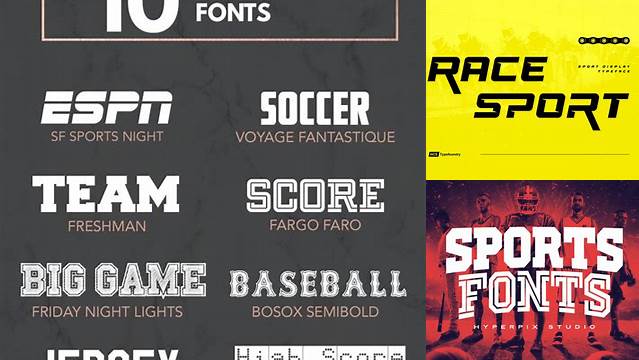
Sport Font: Free Downloads & Tips For Dynamic Designs
Are you looking to inject some dynamic energy into your designs? Look no further! Sport fonts are the perfect way to capture the spirit of competition, athleticism, and high-octane action in your projects. Whether you're designing a sports team logo, creating eye-catching posters for a fitness event, or developing a video game with a competitive edge, the right font can make all the difference. In this article, we'll dive into the world of sport fonts, exploring what makes them so effective, where to find them for free, and how to use them to achieve the maximum impact in your designs. So, buckle up and get ready to explore the exciting possibilities of sport fonts!
What Makes a Font a "Sport Font?"
So, what exactly defines a "sport font"? It's not just about slapping a swoosh on every letter! Sport fonts typically share several key characteristics that evoke a sense of movement, power, and competition. Understanding these elements can help you identify the right font for your project and effectively communicate your message. Here's a breakdown of the key characteristics: First, many sport fonts feature bold, strong letterforms. Think thick, impactful strokes that command attention. This boldness conveys a sense of power and dominance, perfect for representing the strength and athleticism of sports figures and teams. Second, angular and dynamic shapes are common. Unlike more traditional fonts with rounded edges, sport fonts often incorporate sharp angles and asymmetrical designs. These features suggest movement, speed, and a sense of urgency, mirroring the fast-paced nature of many sports. Third, a slightly aggressive or assertive tone is often seen. This doesn't mean the font has to be angry, but it should project confidence and a competitive spirit. This can be achieved through the overall design of the letters, the spacing between them, and even the inclusion of subtle serifs or decorative elements. Fourth, look for fonts that evoke a sense of speed. This can be achieved through slanted letterforms (italics), stylized lines that suggest motion, or even the overall visual weight of the font. Fonts designed to look fast can be particularly effective for sports-related designs, capturing the adrenaline-pumping excitement of competition. Ultimately, the best way to determine if a font is a "sport font" is to consider the overall feeling it evokes. Does it make you think of competition, energy, and athleticism? If so, it's likely a good fit for your project. Remember to consider your target audience and the specific message you want to convey when making your selection.
Tips for Using Sport Fonts Effectively
Okay, you've found some awesome sport fonts – now what? Using them effectively is key to creating designs that truly capture the spirit of athleticism and competition. Here are some tips to help you make the most of your chosen font: Consider the context of your design. A font that works perfectly for a basketball team logo might not be suitable for a yoga studio flyer. Think about the sport or activity you're representing and choose a font that aligns with its overall tone and style. Pair your sport font with a complementary font. Using a single font throughout your entire design can be monotonous. Experiment with pairing your sport font with a simpler, more neutral font for body text or supporting elements. This will help to create visual contrast and make your design more readable. Pay attention to kerning and tracking. Kerning refers to the spacing between individual letters, while tracking refers to the overall spacing of all letters in a word or phrase. Adjusting these settings can significantly impact the readability and visual appeal of your font. Increase contrast to create a more dynamic design. Sport fonts are naturally bold and attention-grabbing, you can enhance their impact by using contrasting colors and font sizes. For example, use a dark sport font on a light background, or vice versa. Incorporate athletic imagery to reinforce the theme. Sport fonts work best when paired with relevant imagery, such as photos of athletes in action, sports equipment, or team logos. This will help to create a cohesive and visually appealing design. Experiment with different font weights and styles. Many sport fonts come in various weights (e.g., bold, italic, light). Experimenting with these variations can help you create visual hierarchy and add interest to your design. Don't be afraid to get creative! Sport fonts are all about energy and excitement. Don't be afraid to experiment with different colors, sizes, and placements to create a unique and eye-catching design. Ultimately, the key to using sport fonts effectively is to experiment and find what works best for your specific project. With a little creativity and attention to detail, you can create designs that truly capture the spirit of athleticism and competition.
Examples of Popular Sport Fonts
Let's take a look at some specific examples of popular sport fonts to give you a better idea of what's out there and how they're typically used. Knowing popular examples may help with your project! These are just a few of the many great sport fonts available: Bebas Neue is a classic sans-serif font that's widely used in sports branding and advertising. Its tall, narrow letterforms and clean lines make it a versatile choice for headlines, logos, and posters. Montserrat is another popular sans-serif font that's often used in sports-related designs. Its geometric shapes and modern aesthetic make it a great choice for creating a clean and professional look. Anton is a bold, condensed sans-serif font that's perfect for creating attention-grabbing headlines and logos. Its strong, impactful letterforms convey a sense of power and dominance. Impact is a classic sans-serif font that's been used in sports-related designs for decades. Its bold, condensed letterforms and simple design make it a timeless choice for creating impactful visuals. Rajdhani is a bold, sans-serif font that offers a modern and sporty look. Its strong letterforms and unique character make it a great choice for logos, headlines, and posters. Alfa Slab One is a heavy-weighted slab serif font, exuding confidence and strength. Its unique design makes it suitable for sports branding and headlines requiring impact. Bungee Inline is a modern and playful display font inspired by athletic jerseys and signage. Its unique inline design adds a touch of retro charm to sports-themed projects. These examples demonstrate the variety of styles available within the sport font category. From classic sans-serifs to bold slabs and playful displays, there's a sport font out there to suit every project and aesthetic.
Conclusion: Get Your Game On with Sport Fonts!
So, there you have it! Sport fonts are a powerful tool for adding energy, excitement, and a competitive edge to your designs. Whether you're creating a logo for a sports team, designing posters for a fitness event, or developing a video game with a competitive theme, the right font can make all the difference. With the wealth of free resources available online, finding the perfect sport font for your project is easier than ever. Just remember to carefully check the license agreement before downloading any font and to use your chosen font effectively to create designs that truly capture the spirit of athleticism and competition. Now go forth and unleash your creative energy with the power of sport fonts! Have fun creating your project!